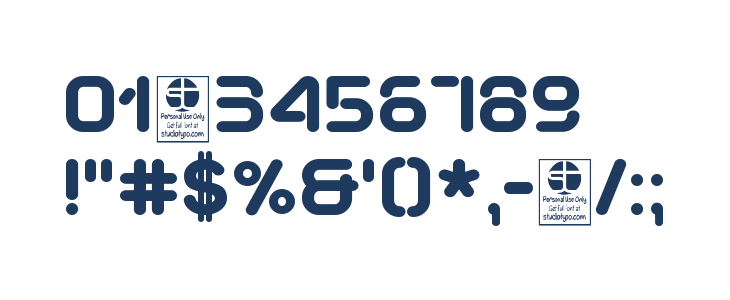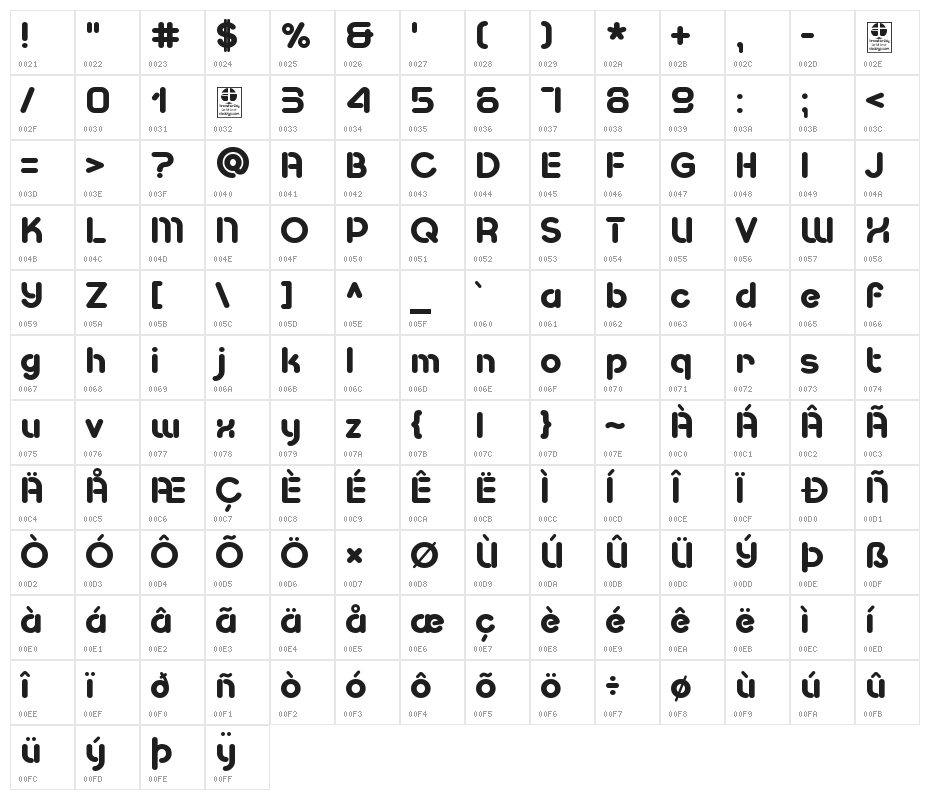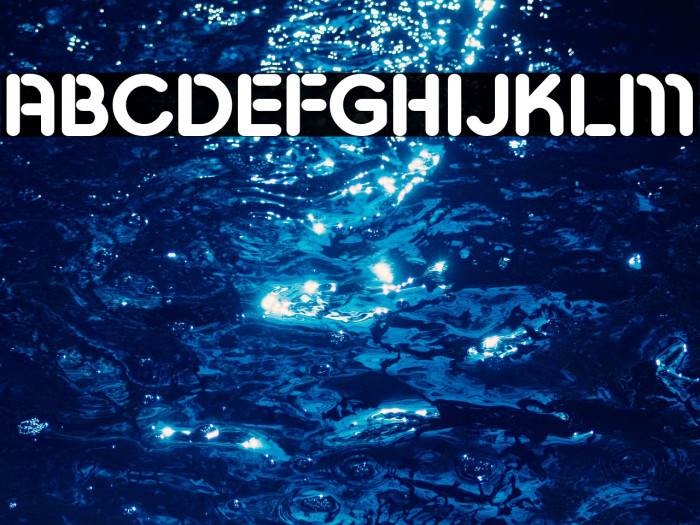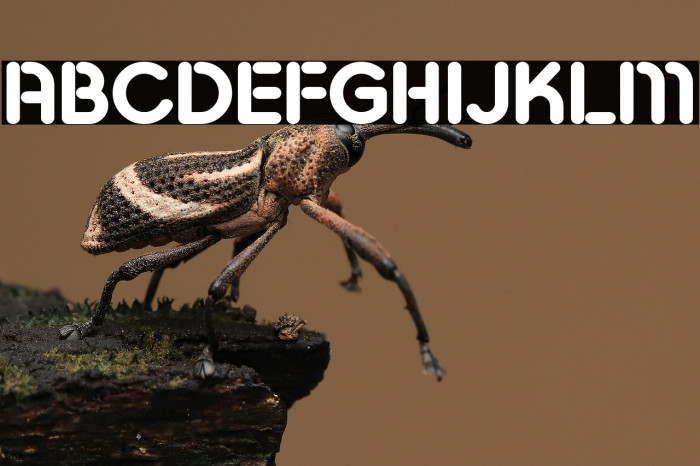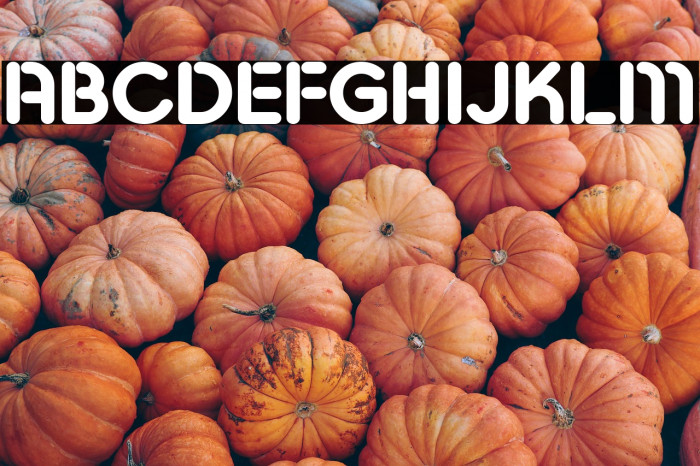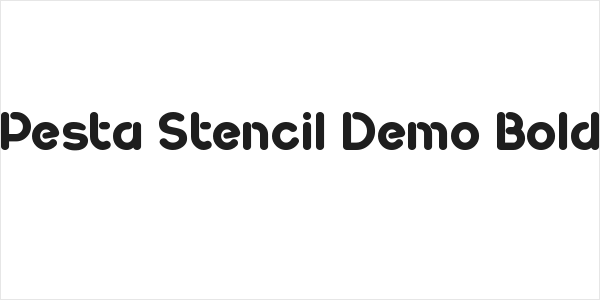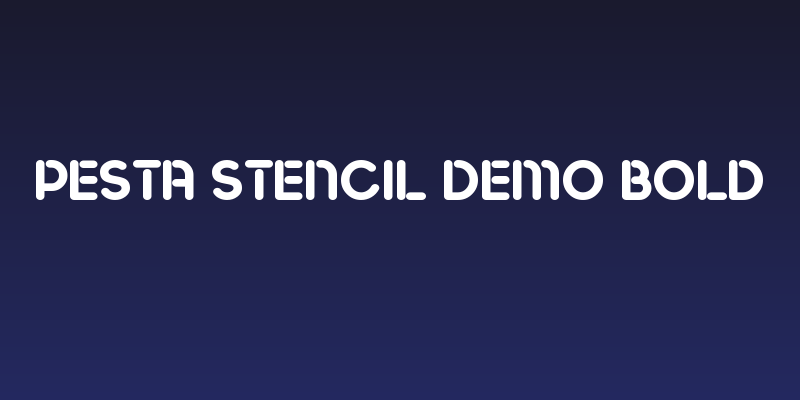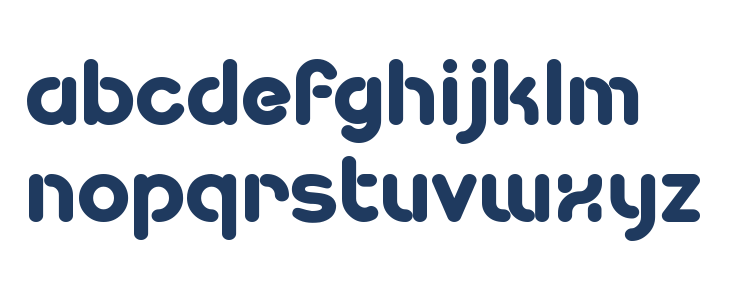
Pesta Stencil Demo Bold Font
Pesta Stencil Demo Bold Description
This font features a bold, stencil-like design with rounded edges and a modern aesthetic. The characters are distinct with a uniform thickness, giving it a cohesive and structured appearance. The uppercase and lowercase letters maintain a consistent style, while the numerals and special characters complement the overall design. The stencil gaps are strategically placed, enhancing readability while maintaining the decorative aspect. This font is ideal for projects that require a bold statement with a contemporary flair.
Proposed ProjectsIdeal for branding, posters, signage, and any project needing a bold, modern look.